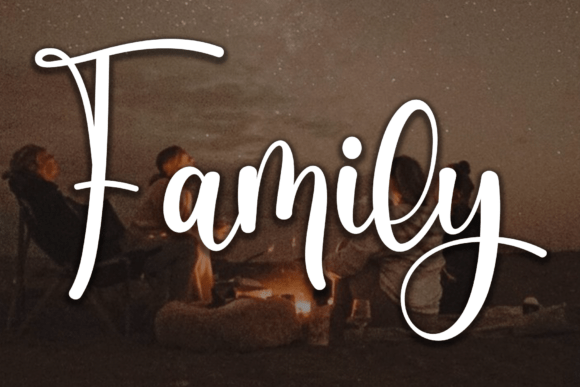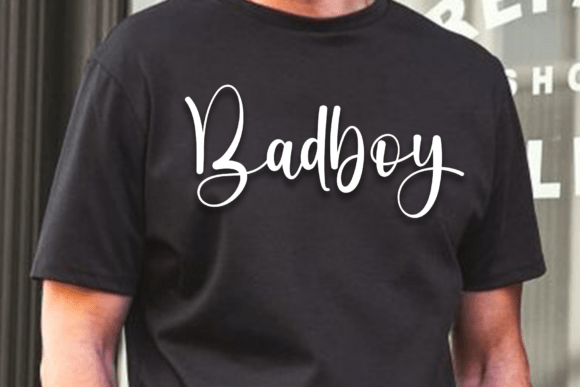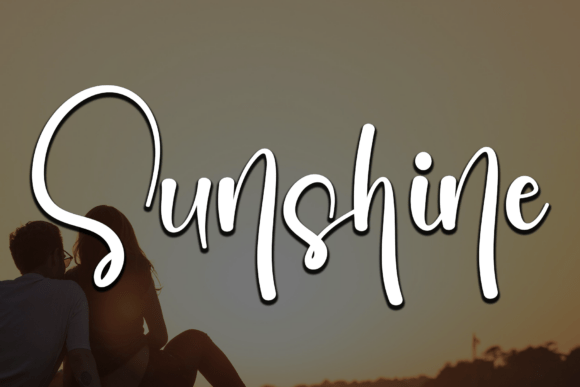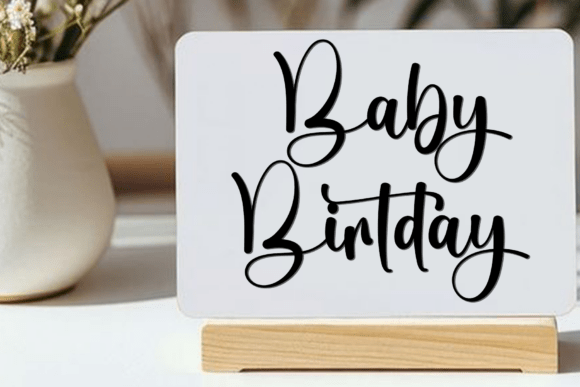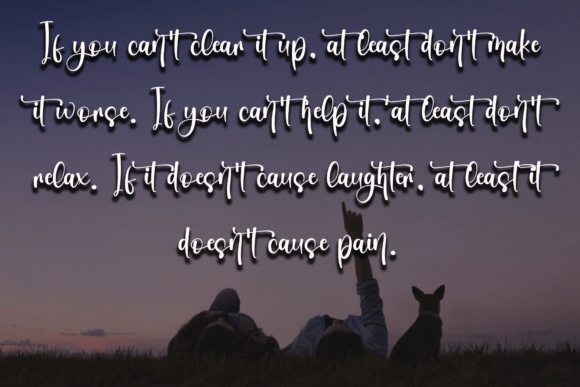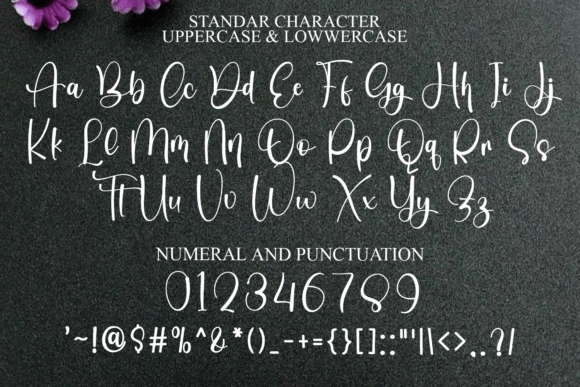
Cream Candy Font: The Sweetest Addition to Your Design Collection
Are you tired of using the same old fonts in your designs? Look no further than the Cream Candy font, a casual and creative typeface that exudes warmth and friendliness. With its round, playful strokes, this font is perfect for adding a relaxed and approachable feel to your personal projects, invitations, and social media graphics.
The Charm of Cream Candy Font
Cream Candy font is a hand-drawn, charming typeface that adds a fun and unique touch to any design. Its playful aesthetic is reminiscent of childhood treats and memories, making it an ideal choice for designers and crafters who want to create a sense of nostalgia and whimsy in their work.
Key Features of Cream Candy Font
- Hand-Drawn Aesthetic: The font’s charming, hand-drawn aesthetic adds a personal touch to any design, making it perfect for crafters and designers who want to create unique and eye-catching work.
- Playful Strokes: The font’s round, playful strokes create a relaxed and approachable feel, making it ideal for personal projects, invitations, and social media graphics.
Cream Candy font is a versatile typeface that can be used in a variety of design projects, including:
- Personal Projects: Add a touch of whimsy and personality to your personal projects, such as scrapbooking, card making, and journaling.
- Invitations: Create eye-catching and unique invitations for parties, weddings, and other special events.
- Social Media Graphics: Use Cream Candy font to add a playful touch to your social media graphics, such as blog posts, Facebook updates, and Instagram stories.
Tips for Using Cream Candy Font
Here are some tips for getting the most out of Cream Candy font:
- Pair with Other Fonts: Experiment with pairing Cream Candy font with other fonts to create a unique and eye-catching combination.
- Use in Headlines: Use Cream Candy font in headlines and titles to add a playful touch to your design.
- Add Graphics: Add graphics and illustrations to your design to complement the playful aesthetic of Cream Candy font.
In conclusion, Cream Candy font is a sweet addition to any design collection. With its charming, hand-drawn aesthetic and playful strokes, this font is perfect for designers and crafters who want to add a touch of whimsy and personality to their work. Whether you’re working on a personal project, creating invitations, or designing social media graphics, Cream Candy font is sure to delight.